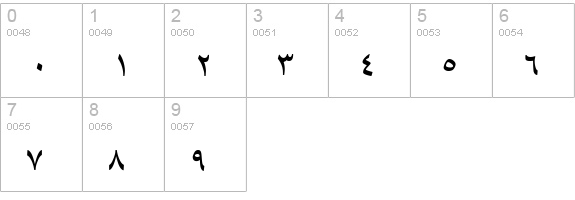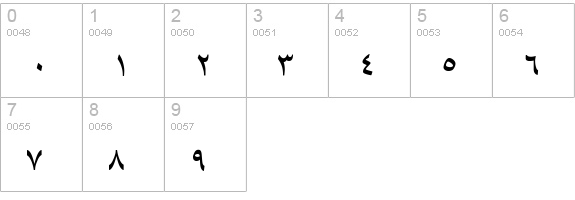
B Baran Font Details
B Baran font is a stunning display typeface that exudes elegance and sophistication. With its unique letterforms and modern design, this font is perfect for creating eye-catching headlines, logos, and branding materials. The sleek lines and stylish curves of B Baran font make it a versatile choice for a wide range of design projects. And the best part? B Baran font is available for free download at FontsMarket.com! This means you can easily access this beautiful font and use it in your projects without any cost. Whether you're a professional designer or a hobbyist, B Baran font is a fantastic addition to your font collection. Don't miss out on the opportunity to enhance your designs with this fabulous typeface – download B Baran font for free today!